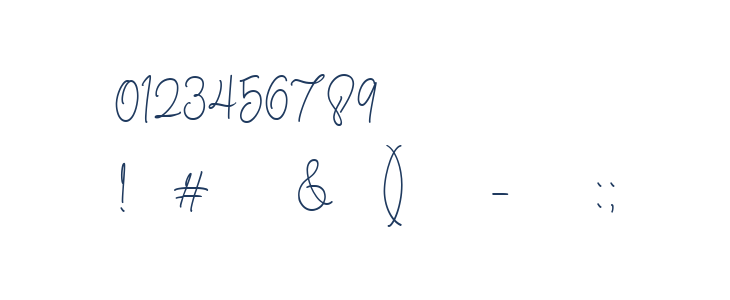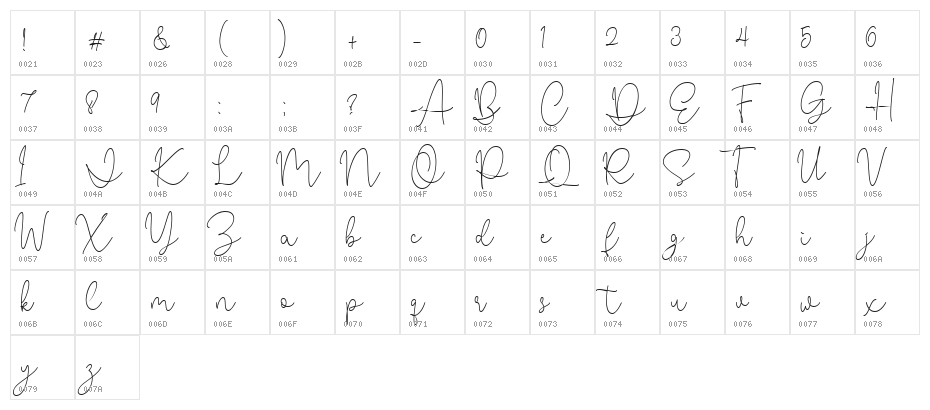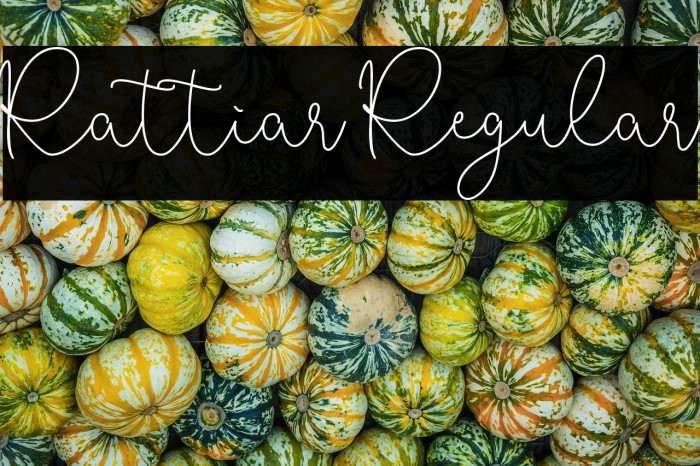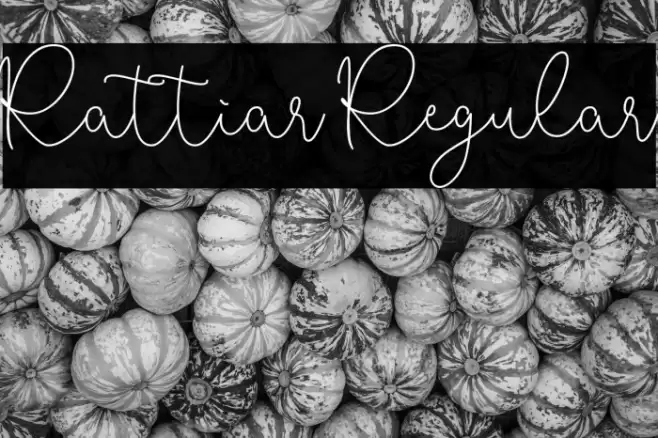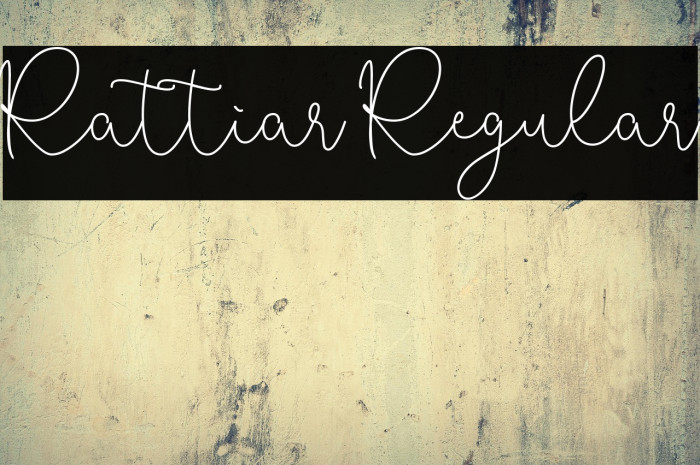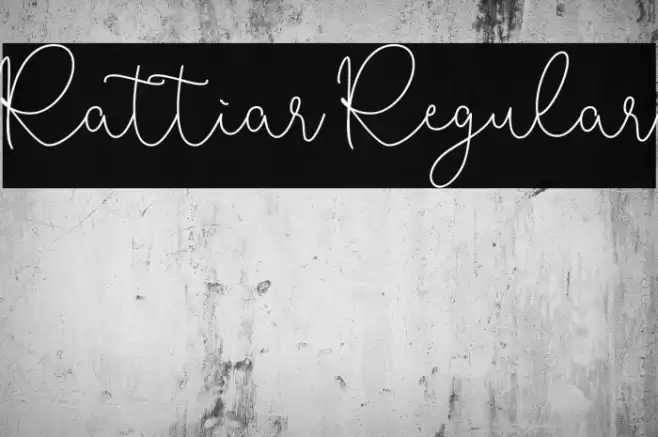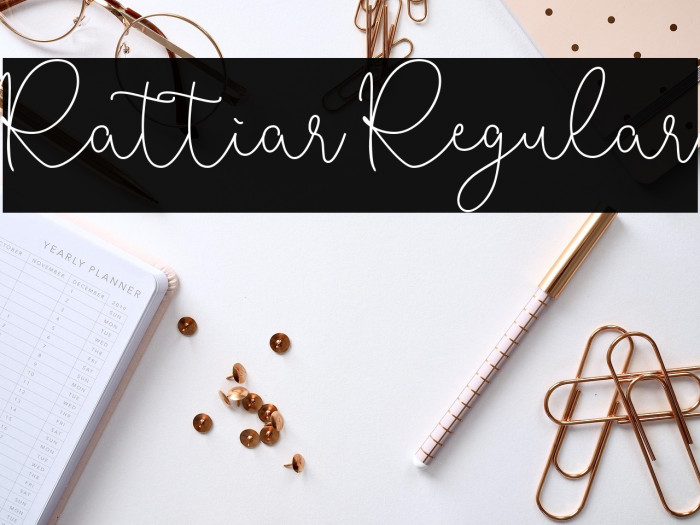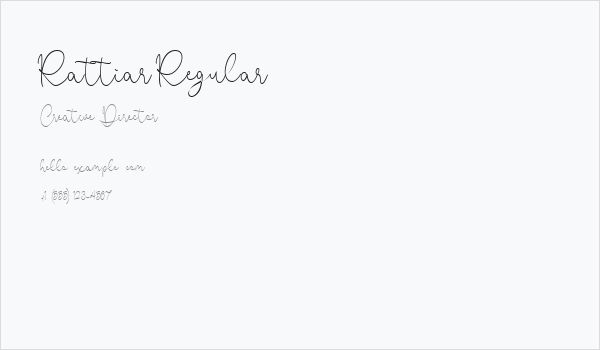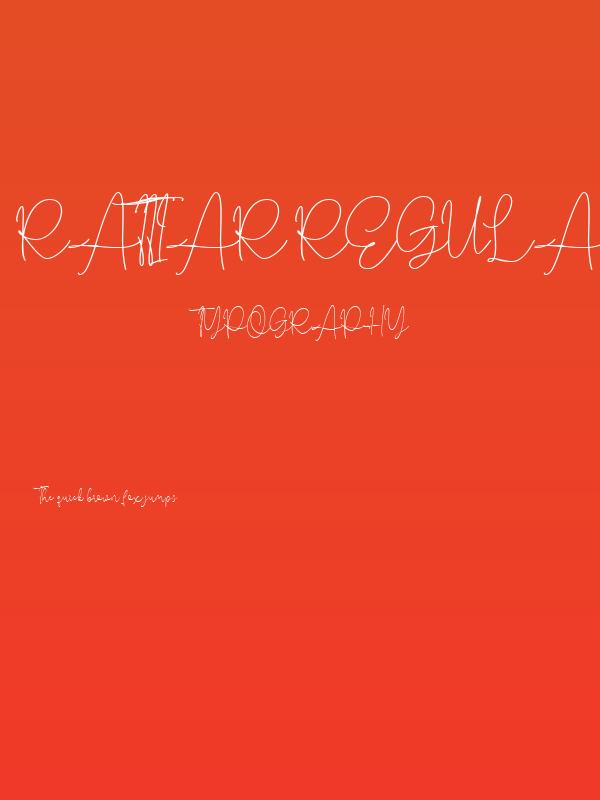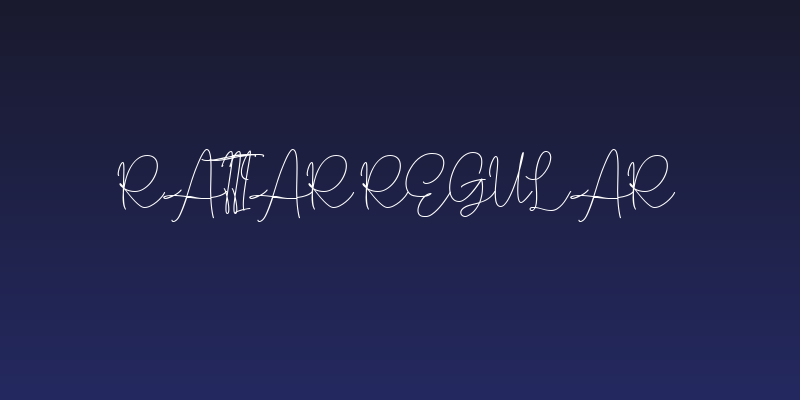
Rattiar Regular Font
Rattiar Regular Description
This font features a flowing, cursive style that mimics elegant handwriting. The letters are interconnected with smooth, sweeping lines, giving it a fluid and dynamic appearance. The uppercase letters maintain a consistent height, while the lowercase letters exhibit a slight slant, enhancing the handwritten feel. The numerals and special characters are designed to match the overall aesthetic, ensuring a cohesive look across all characters. The font's delicate strokes and graceful curves make it ideal for projects that require a personal touch.
| Proposed Projects | Ideal for wedding invitations, greeting cards, personal branding, and decorative quotes. |